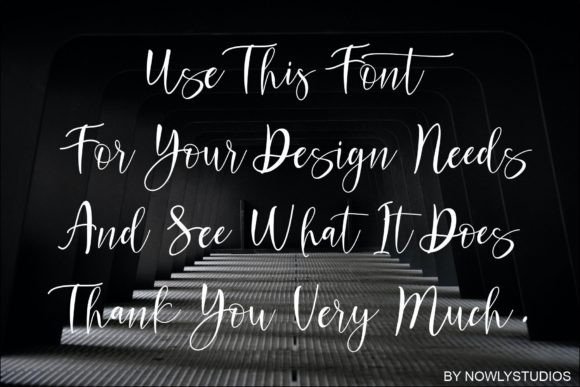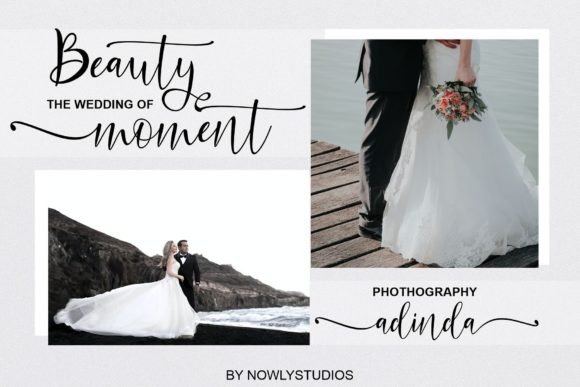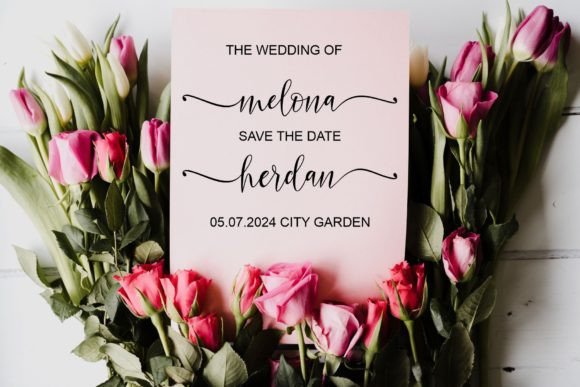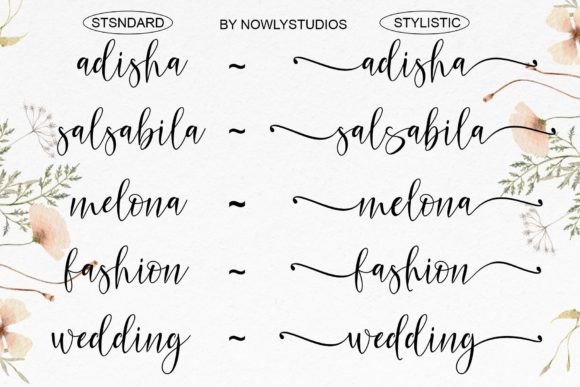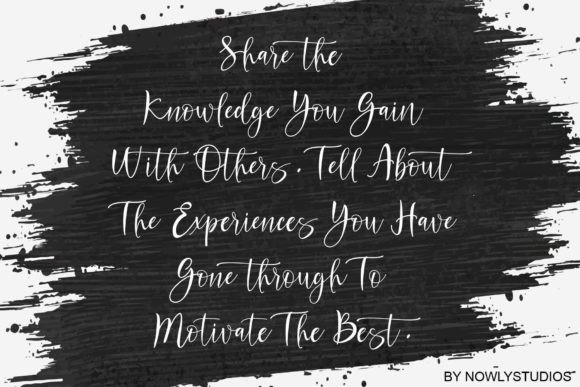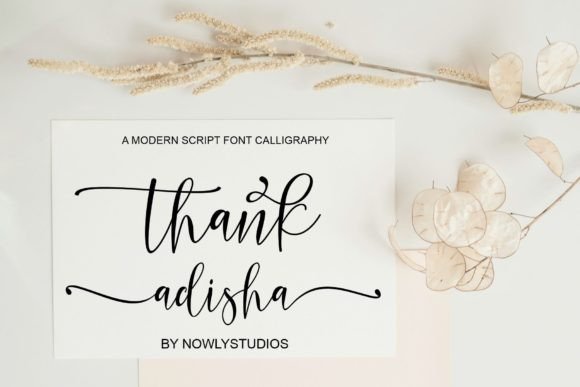
Introducing Adisha Font: A Unique Blend of Classic and Modern Typography
Are you a designer or crafter looking for a font that combines the elegance of classic typography with the flair of modern design? Look no further than Adisha Font, a beautiful script font that is perfect for a wide range of creative projects. With its imperfect style, smooth lines, and simple yet sophisticated design, Adisha Script is ideal for weddings, events, invitations, and more.
What Makes Adisha Font So Special?
Adisha Script is a unique blend of classic and modern fonts, with an imperfect style that features ups and downs, like dance letters. This distinctive design gives the font a playful, yet elegant feel that is perfect for a variety of applications. The font is smooth, clean, and simple, making it easy to read and beautiful to look at. Whether you’re designing a wedding invitation, an event program, or a logo, Adisha Script is the perfect choice.
Perfect for a Wide Range of Creative Projects
Adisha Script is a versatile font that can be used for a wide range of creative projects, including:
- Weddings and events: Use Adisha Script to create beautiful wedding invitations, event programs, and escort cards.
- Invitations and announcements: Adisha Script is perfect for creating custom invitations, announcements, and greeting cards.
- Logos and branding: The font’s unique design makes it ideal for logos, branding, and packaging.
- Displays and menus: Use Adisha Script to create eye-catching displays, menus, and slider blogs.
- Custom addresses and stamps: The font’s elegant design makes it perfect for custom addresses and stamps.
Advanced Typography Features
Adisha Script includes a range of advanced typography features that make it easy to create beautiful, professional-looking designs. These features include:
- Alternate glyphs: The font includes a range of alternate glyphs that can be used to add variety and interest to your designs.
- Beautiful swirls: Adisha Script features beautiful swirls and flourishes that can be used to add a touch of elegance to your designs.
- Stylistic sets: The font includes stylistic sets that allow you to easily switch between different font styles.
- Ligatures: Adisha Script features ligatures that help to create a more natural, flowing text.
Adisha Font is a unique and beautiful script font that is perfect for designers and crafters looking for a classic yet modern typography solution. With its imperfect style, smooth lines, and simple yet sophisticated design, Adisha Script is ideal for a wide range of creative projects. The font’s advanced typography features, including alternate glyphs, beautiful swirls, and ligatures, make it easy to create professional-looking designs. And with PUA unicode encoding, you can easily access all of the font’s alternate characters. Whether you’re designing a wedding invitation, a logo, or a custom address, Adisha Script is the perfect choice.